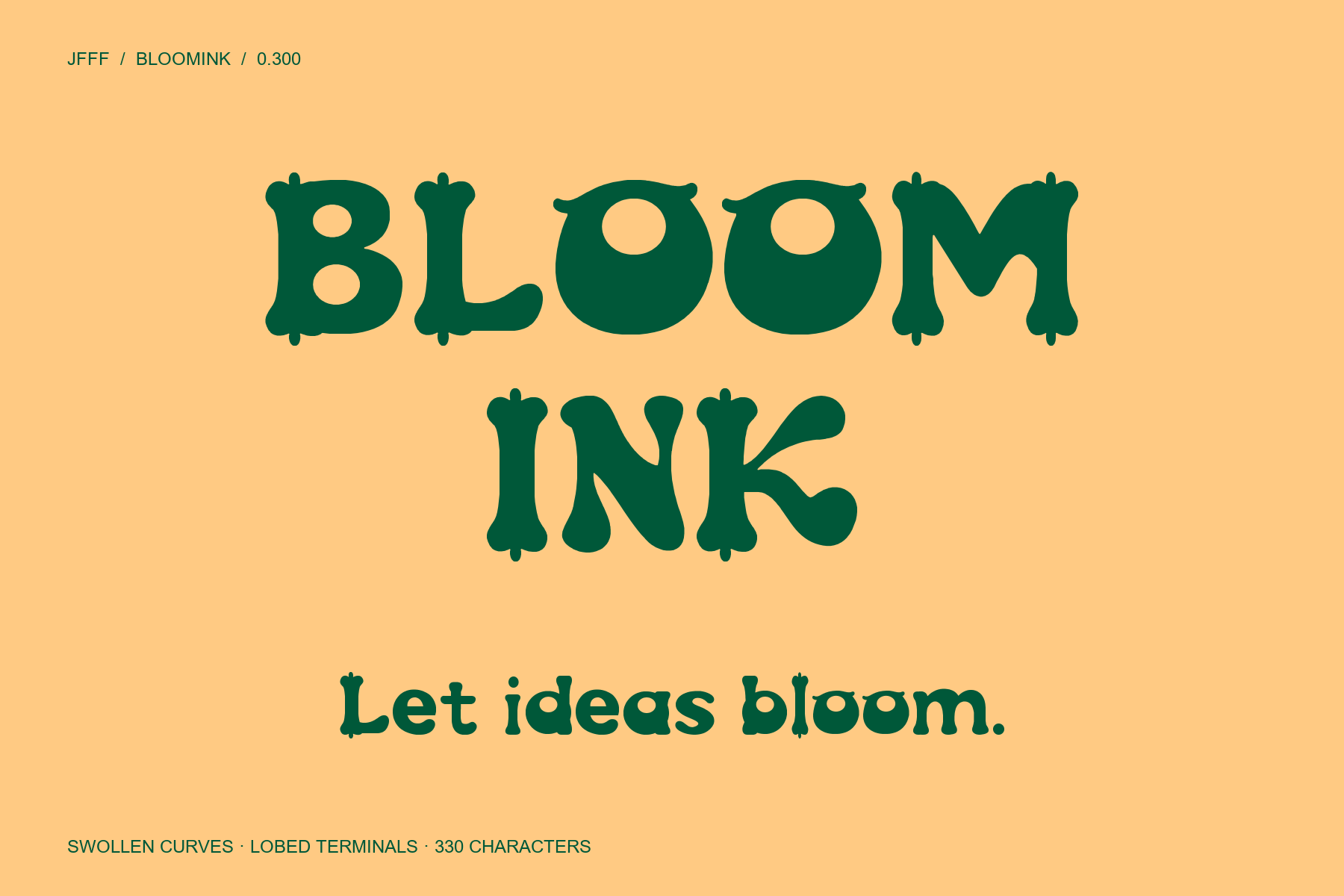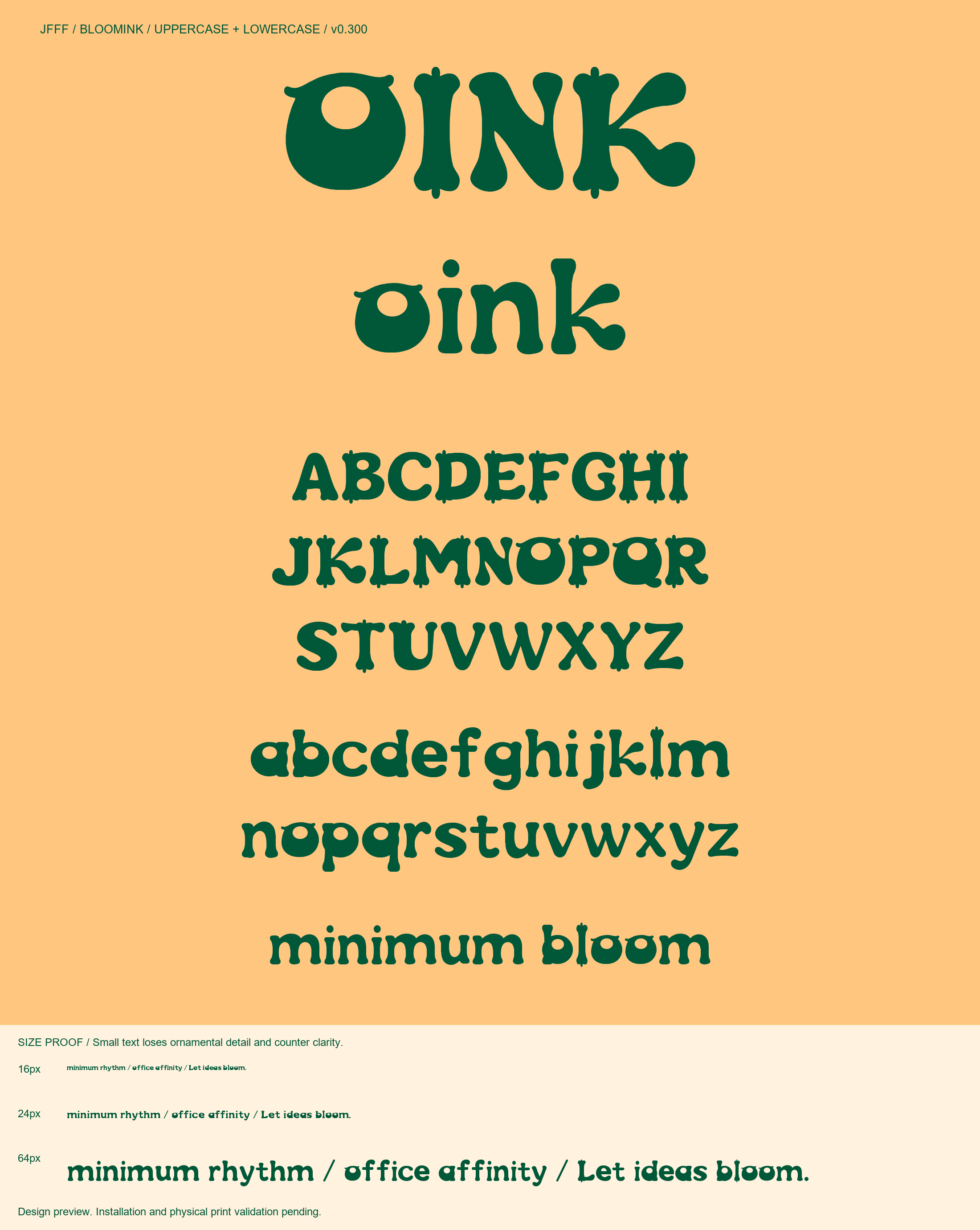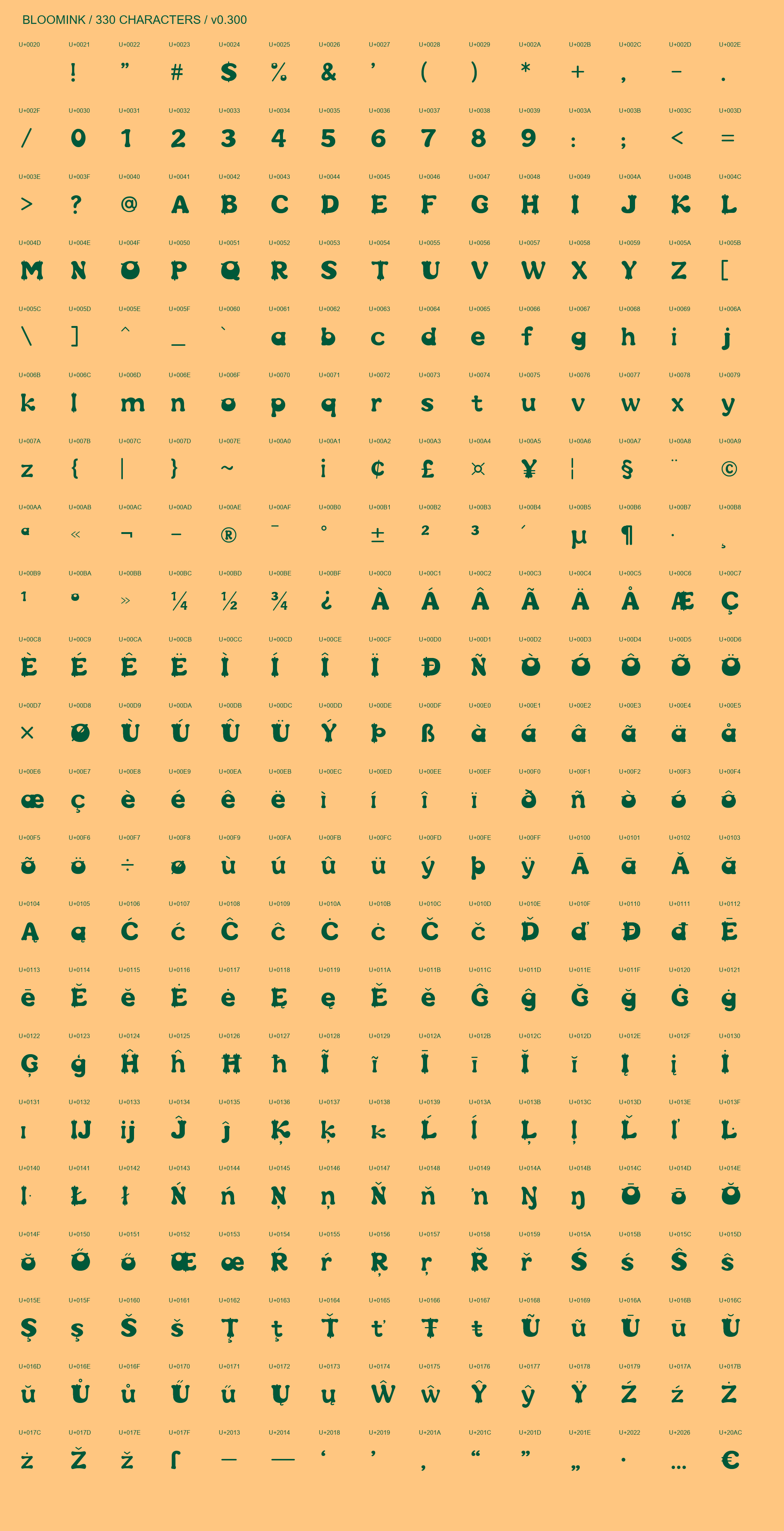
Free chunky hand-cut display font
BLOOMINK organic display lettering with swollen curves and lobed terminals.
Let ideas bloom. BLOOMINK is an expressive display typeface with swollen bowls, high counters, pinched stems and flower-like lobed terminals. Flowing N and K strokes give headlines an organic rhythm. Lowercase letters interpret the same rounded construction with quieter ornament. Version 0.300 refines joins, accented characters, ligatures and symbols, and adds selected kerning. 330 encoded characters and 331 glyphs cover Basic Latin, Latin-1, Latin Extended-A and selected punctuation, including spaces. Designed for poster titles and short packaging headlines, provisionally 48–144 pt. Design preview: major repaired letters were reviewed enlarged; a final visual review of all 330 revised characters, native-app installation and physical print validation remain pending. Small text can lose ornamental detail and counter clarity. Precomposed Latin accents are supported; Hangul and independent combining marks are not included. Download includes TTF and SIL OFL 1.1.